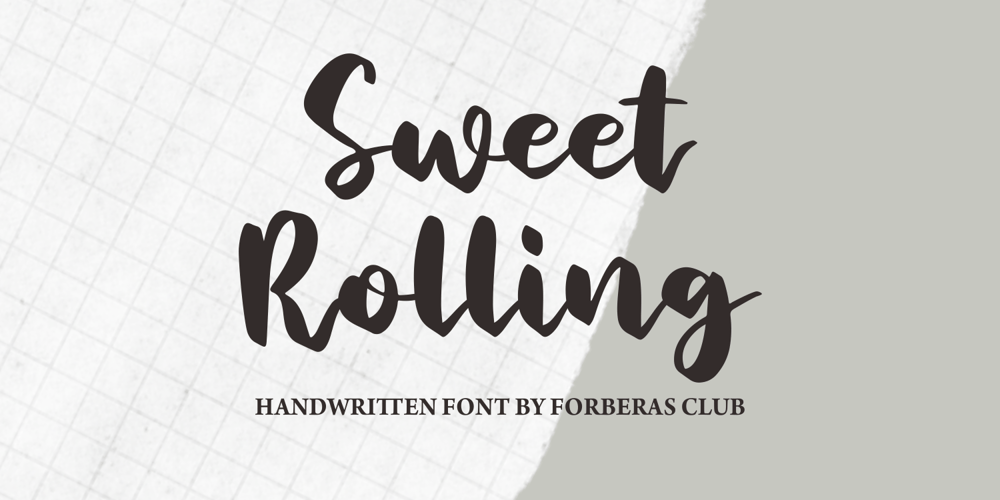
Sweet Rolling Font Family was designed by ANGGI HERMAWAN and published by Forberas Club. Sweet Rolling contains 1 styles and family package options. Sweet Rolling is modern handwritten.Recommended to use this font for wedding party, invitation, memorable moment, love story and many more with special moment.